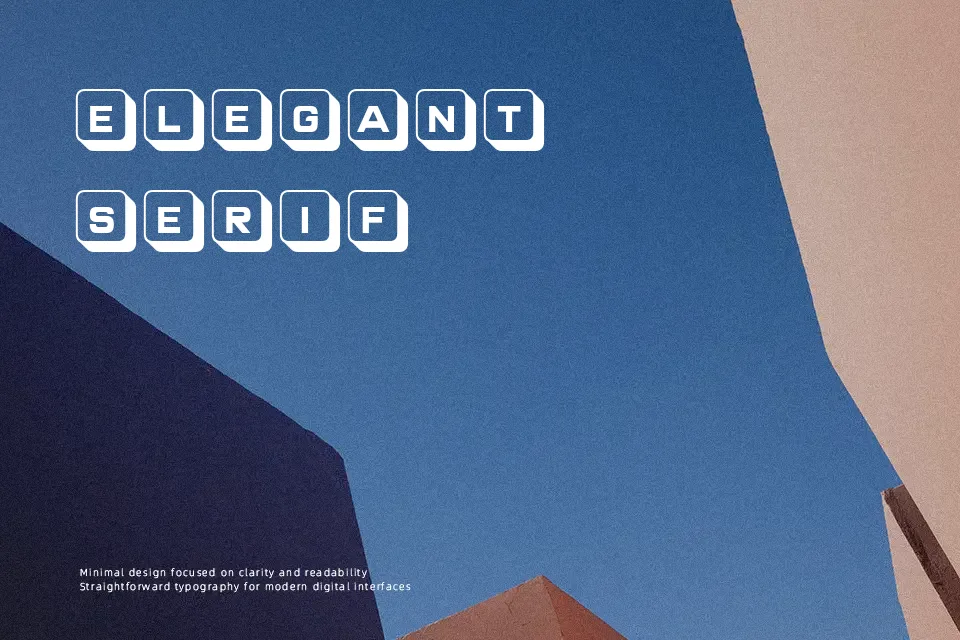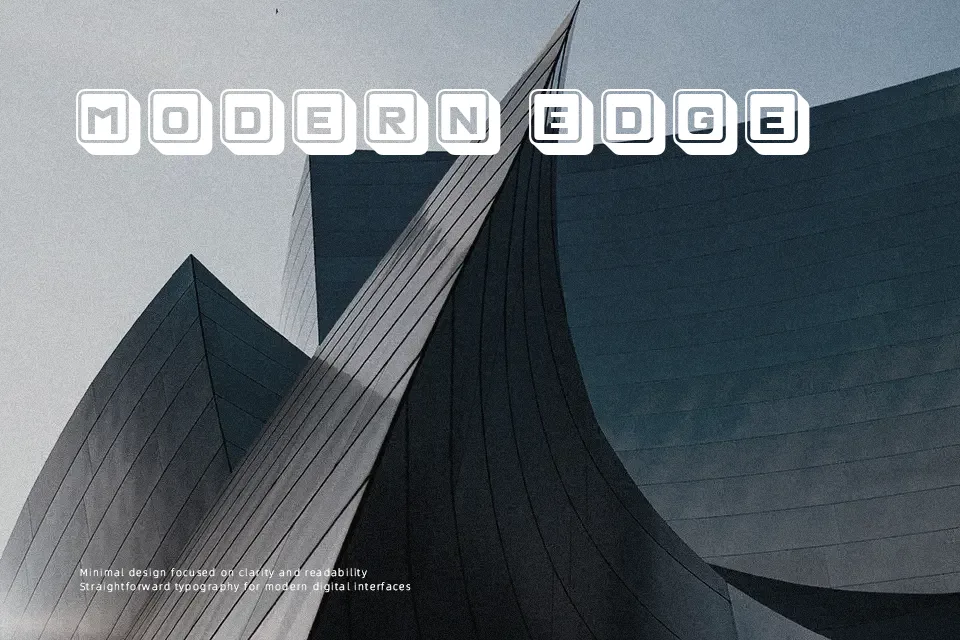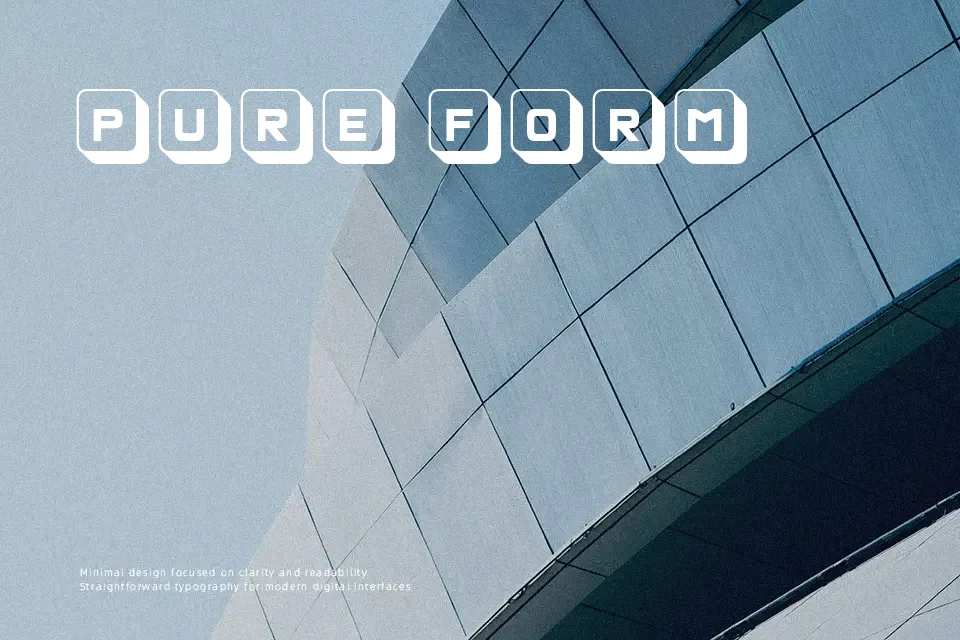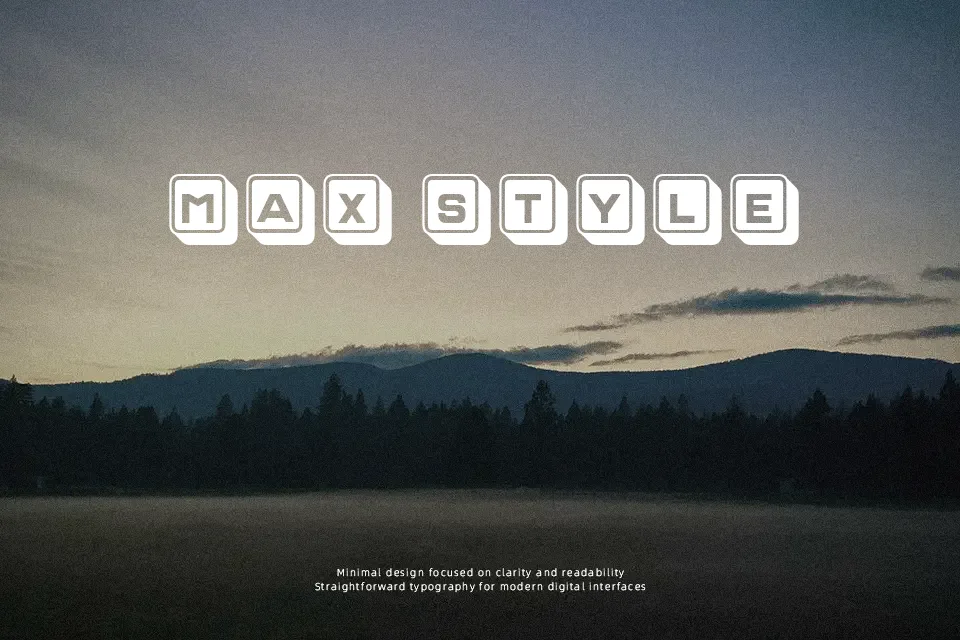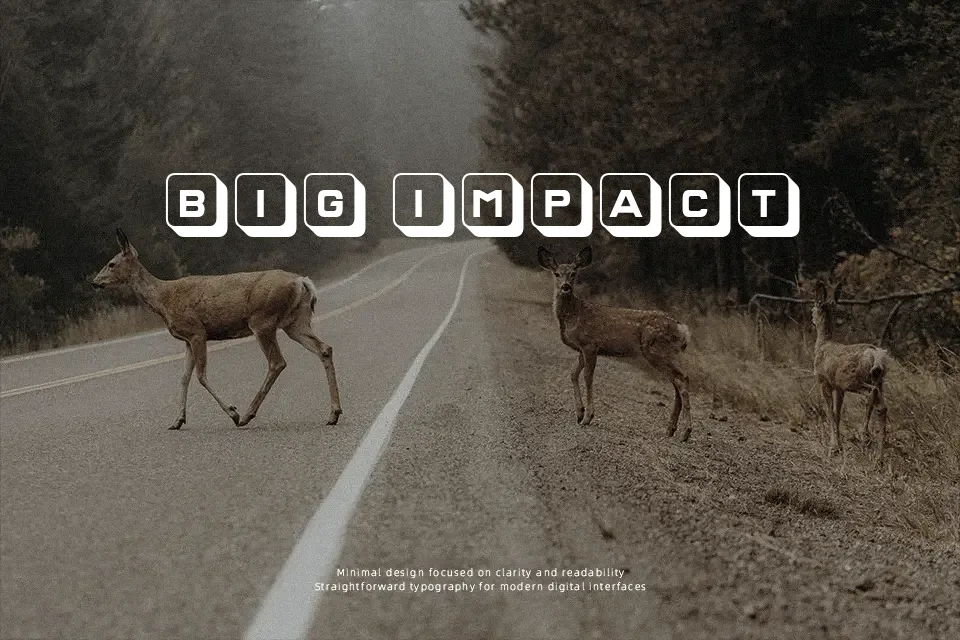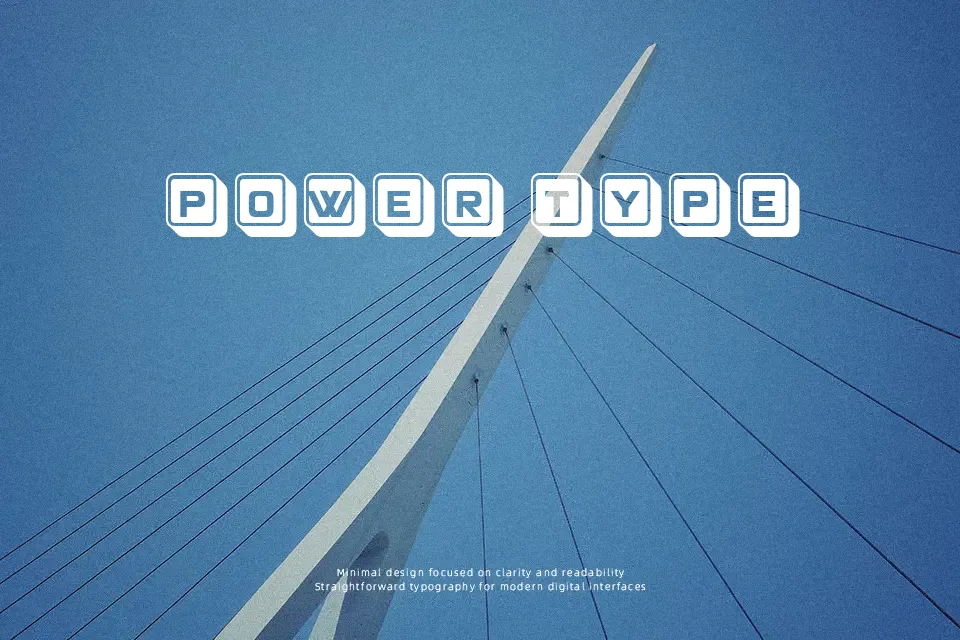
Olivetti Font
Olivetti Font uses rigid geometric letterforms, even-weight strokes, and deliberately simplified details to create a compact display texture. Its uppercase characters have a consistent, constructed rhythm, while the proportions and close visual fit give short words a firm, graphic presence. Numerals and punctuation follow the same reduced, angular approach, supporting concise titles and label text. The typeface reads most clearly at larger sizes, where its distinctive shapes remain easy to separate. It works well for posters, logos, and packaging headings, but its unusual construction is less comfortable for small copy or extended reading.
Best For: poster headlines, product packaging titles, logo concepts, social media graphics
Not Ideal For: long paragraph text, small interface labels, legal documents, dense editorial layouts
Perfect for headline, logo, and packaging, with a bold and decorative style.